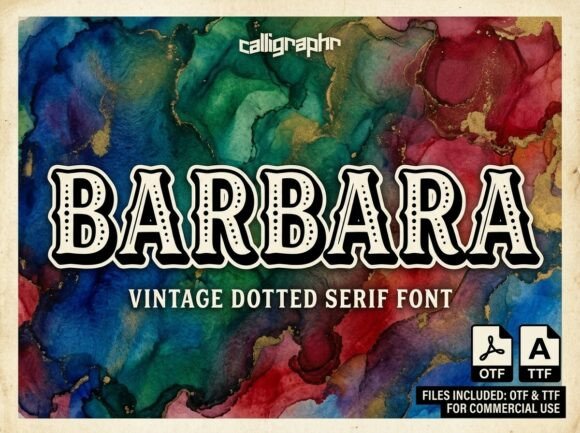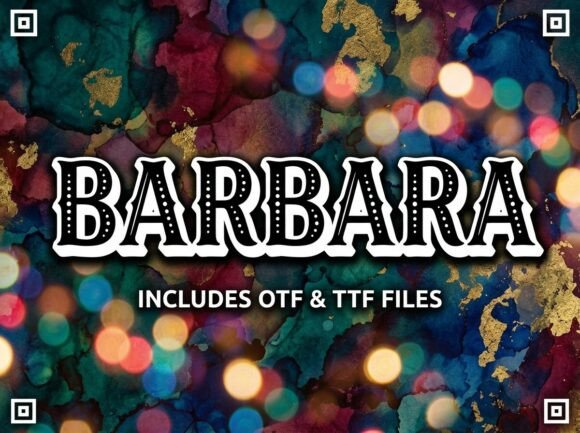
Introducing Barbara Font: A Stunning Decorative Display Font
Are you tired of using the same old fonts for your creative projects? Look no further than Barbara Font, a breathtaking decorative display font designed to turn heads. With its unique artistic elements and strong visual personality, this font is perfect for creators who want to make a statement and break away from the ordinary.
What Makes Barbara Font Special?
Barbara Font is a versatile and sophisticated font that is ideal for a variety of creative applications, including bold headlines, artistic logos, and creative packaging. Its stunning design and professional finish make it perfect for designers and crafters who want to add a touch of elegance and sophistication to their work.
Key Features of Barbara Font
- Unique Artistic Elements: Barbara Font features unique artistic elements that set it apart from other fonts. Its intricate details and elegant lines make it a true work of art.
- Strong Visual Personality: This font has a strong visual personality that demands attention. Its bold and striking design makes it perfect for headlines, logos, and other creative applications.
- Versatile: Barbara Font is versatile enough for use in a variety of creative projects, from bold headlines and artistic logos to creative packaging and more.
- Professional Finish: Despite its decorative nature, Barbara Font maintains a professional and polished finish, making it suitable for use in a variety of contexts.
Why Choose Barbara Font?
There are many reasons why Barbara Font is an excellent choice for designers and crafters. Here are just a few:
- Stand Out from the Crowd: With its unique artistic elements and strong visual personality, Barbara Font is sure to help your creative projects stand out from the crowd.
- Elegance and Sophistication: This font adds a touch of elegance and sophistication to any creative project, making it perfect for designers and crafters who want to create high-end work.
- Versatility: Barbara Font is versatile enough for use in a variety of creative projects, from bold headlines and artistic logos to creative packaging and more.
- Professional Quality: This font is of professional quality, making it suitable for use in a variety of contexts, from business branding to personal creative projects.
How to Use Barbara Font
Barbara Font is easy to use and can be incorporated into a variety of creative projects. Here are a few ideas to get you started:
- Headlines: Use Barbara Font to create bold and striking headlines that demand attention.
- Logos: This font is perfect for creating artistic logos that showcase your brand’s personality and style.
- Packaging: Add a touch of elegance and sophistication to your packaging with Barbara Font.
- Signage: Use this font to create eye-catching signage that stands out from the crowd.
In conclusion, Barbara Font is a stunning decorative display font that is perfect for designers and crafters who want to add a touch of elegance and sophistication to their creative projects. With its unique artistic elements, strong visual personality, and versatility, this font is sure to help your work stand out from the crowd. So why wait? Purchase Barbara Font today and take your creative projects to the next level!